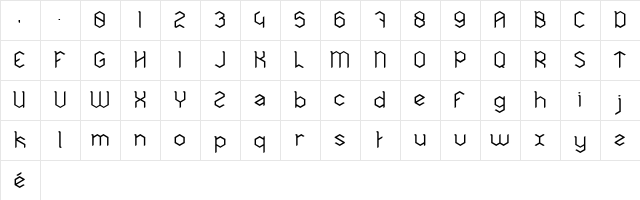
Hexa Regular
Design Context for Hexa Typeface
Hexa offers clean, dependable letterforms without strong stylistic allegiance, making it a practical choice for designers who need flexibility.